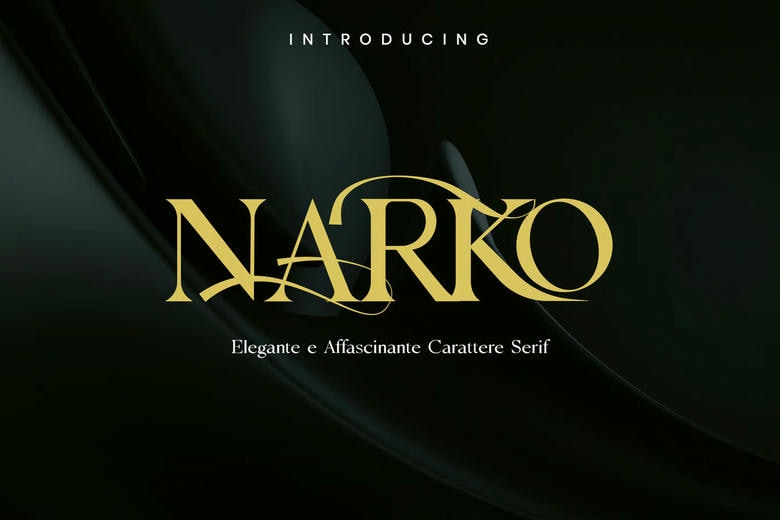
Narko Font
Narko is a beautiful serif typeface that is expected to create a sense of luxury, elegance, and artistic sophistication. Narko, with its elegant serifs, high-contrast lines and flowing swashes, is most suited to any project that requires a dose of high fashion and splendor.
This font is ideal in branding, editorials, packaging, and in high-end invitations, and it cannot be forgotten because of its bold, yet elegant appearance.
Narko Elegant Serif Font